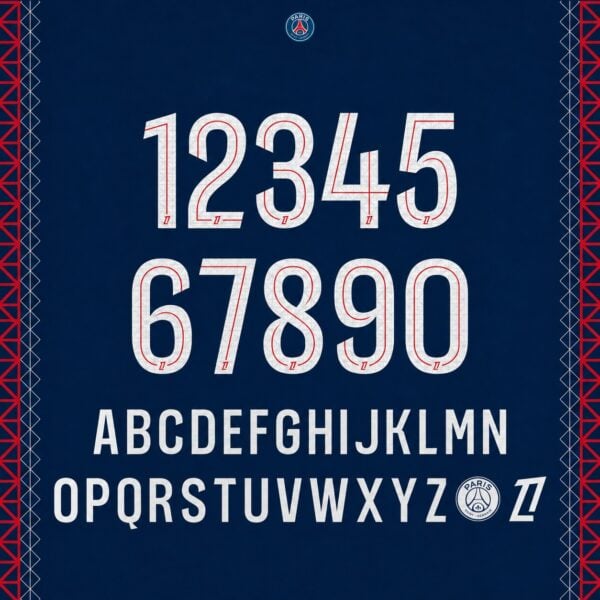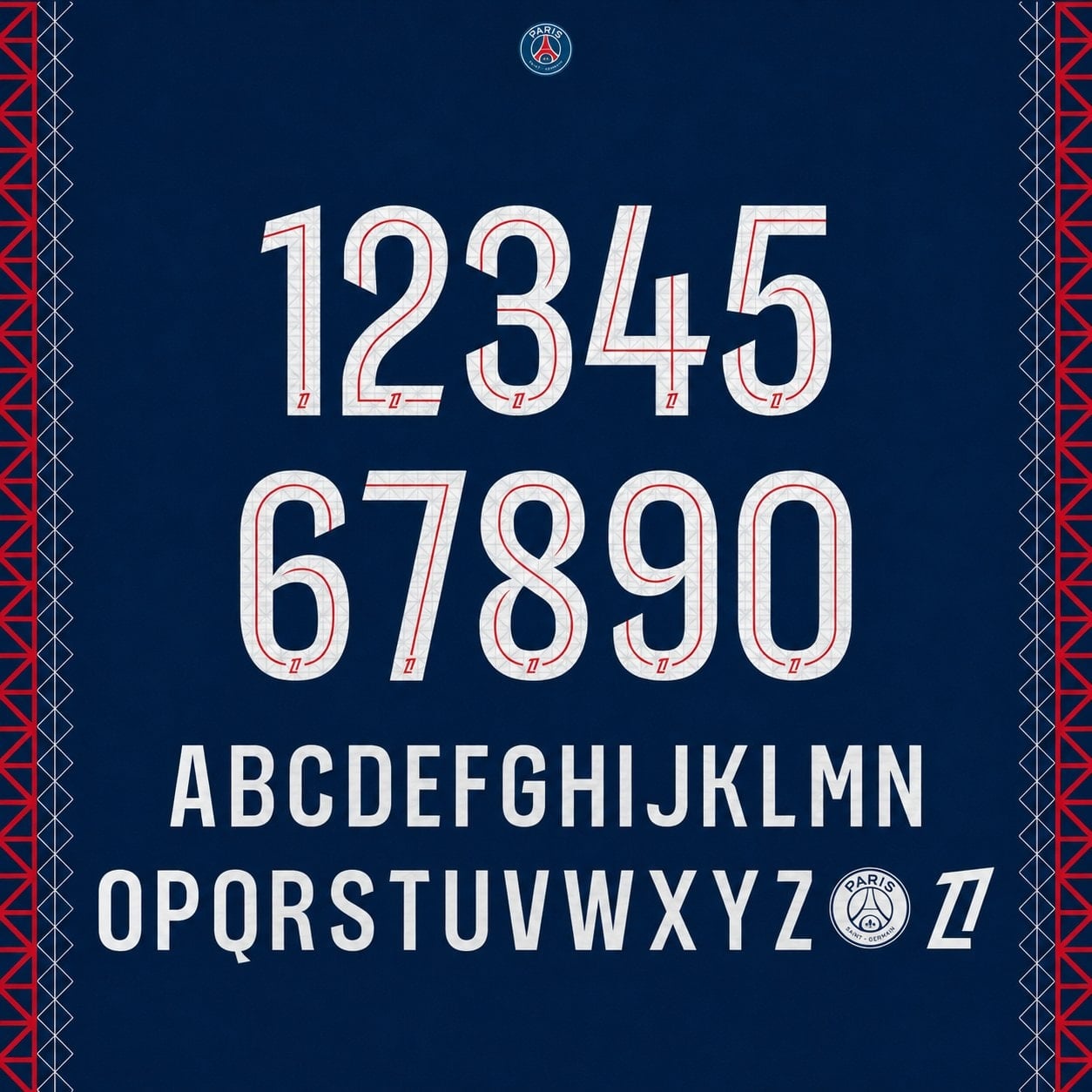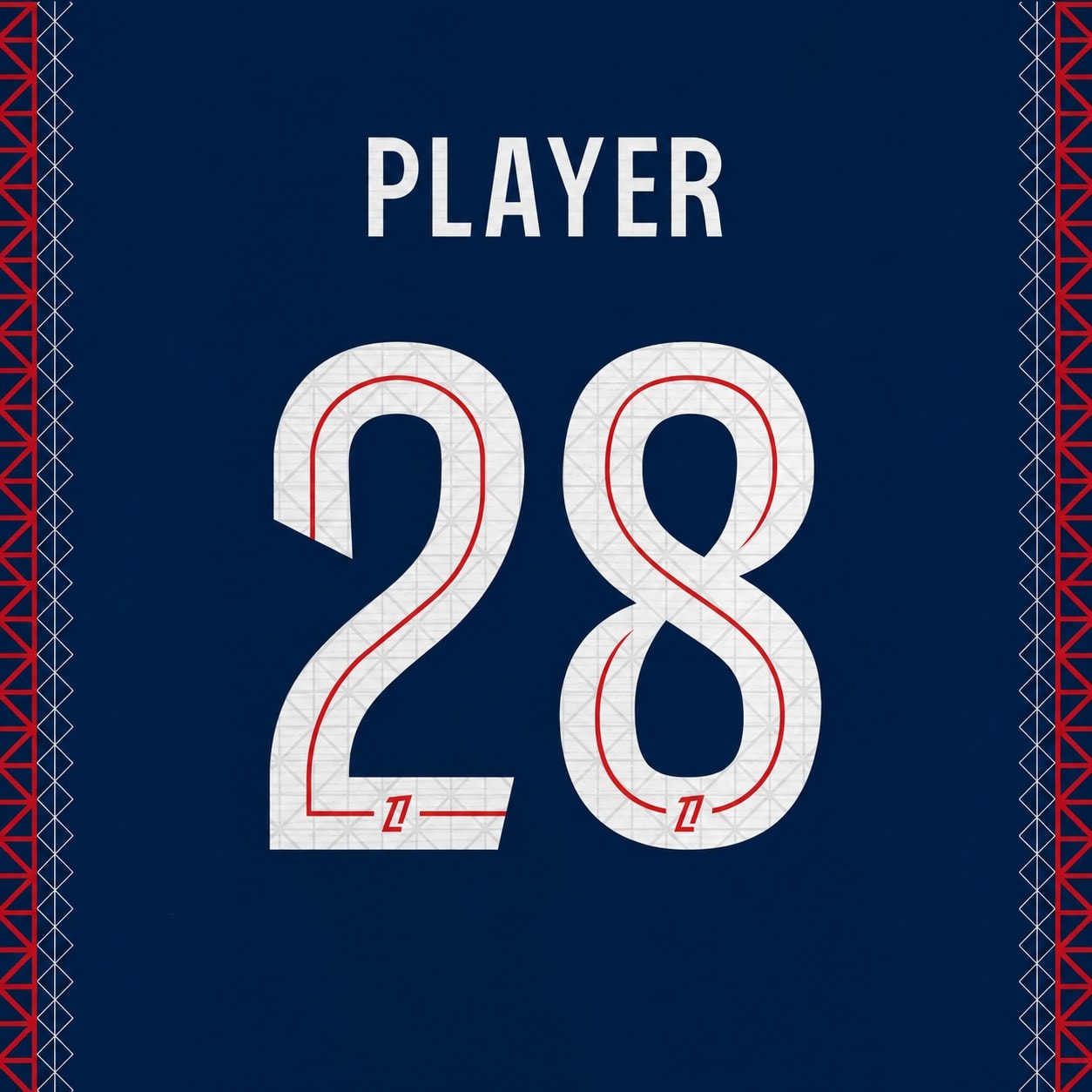
Complete PSG 2025/26 home font set — every letter and every number in one kit, white lettering with the red inner line, exactly as shown.
- Full set included: all letters A–Z + all numbers 0–9, exactly as shown
- Fine crest detailing inside the numbers